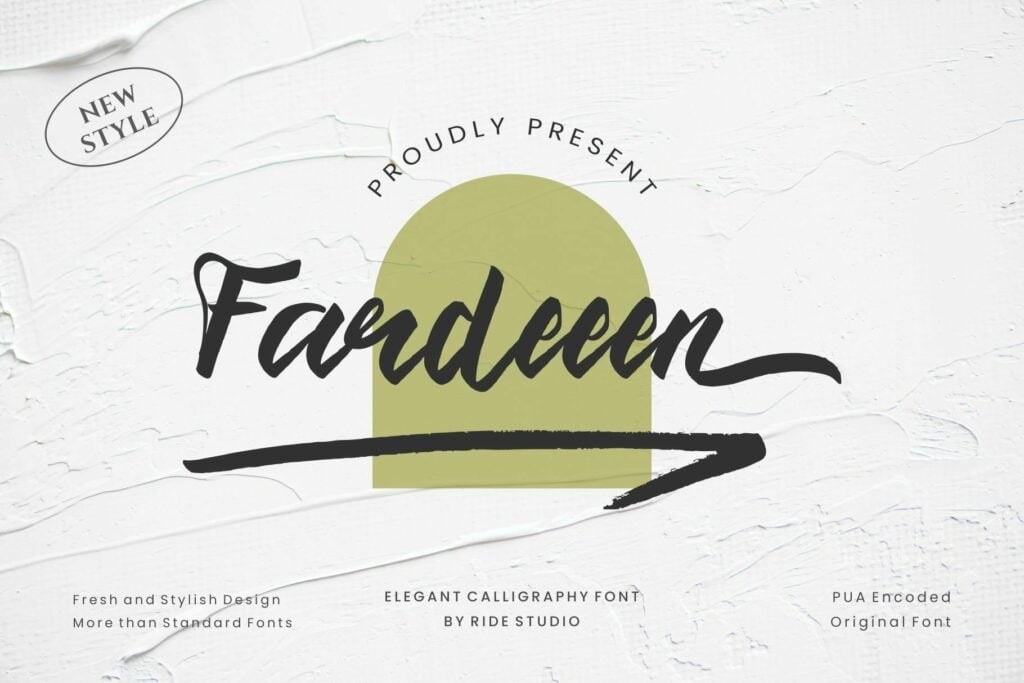
Fardeeen Font
Fardeeen is a beautiful, well balanced and stylish script font. It is defined by smooth curves and is perfect for fashion branding or editorial designs. Fardeeen is PUA encoded which means you can access all of the glyphs and swashes with ease!
Fardeeen Brush Script Font